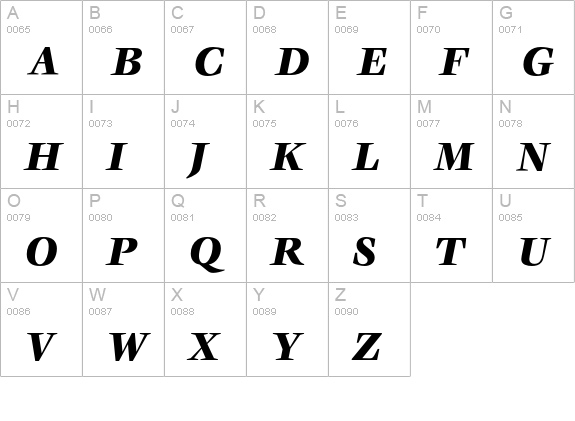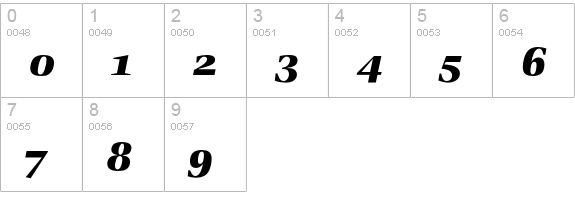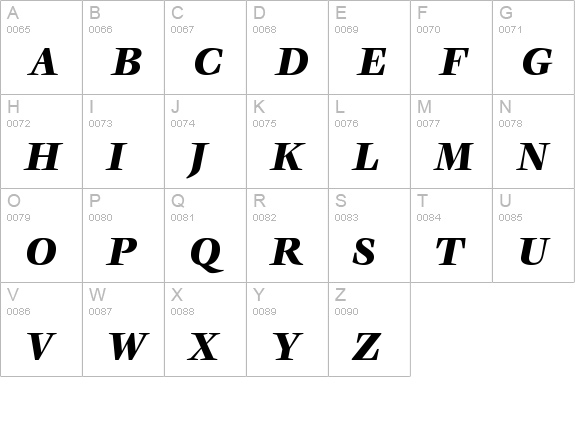
VeljovicEF-BlackItalicOsF Font Details
VeljovicEF-BlackItalicOsF is a striking and elegant font that combines classic elegance with a modern twist. Designed by renowned typographer Jovica Veljovic, this font exudes sophistication and refinement. The Black Italic style adds a touch of drama and flair to any design project. With its crisp and clean letterforms, VeljovicEF-BlackItalicOsF is perfect for a wide range of applications, from editorial design and advertising to branding and packaging. Its versatility allows it to work well in both large headlines and smaller body text, adding a touch of sophistication to any layout. The free availability of VeljovicEF-BlackItalicOsF is a testament to its creator's commitment to making high-quality typography accessible to all. As one of the many fonts freely available to download at FontsMarket.com, this font offers designers and creatives the opportunity to add a touch of elegance to their projects without breaking the bank. Whether you are designing a high-end fashion magazine, a luxury brand's logo, or a sleek and modern website, VeljovicEF-BlackItalicOsF is sure to make a statement. Its graceful curves, sharp angles, and unique character designs set it apart from other fonts, making it a standout choice for those looking to add a touch of sophistication to their designs. Download VeljovicEF-BlackItalicOsF for free at FontsMarket.com and elevate your designs to new heights with this exquisite typeface. With its combination of timeless elegance and contemporary flair, this font is sure to captivate and inspire both designers and readers alike.